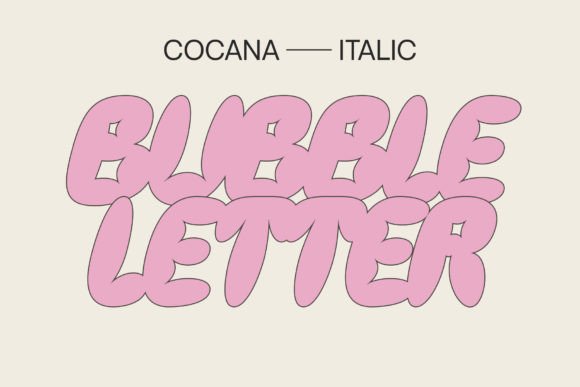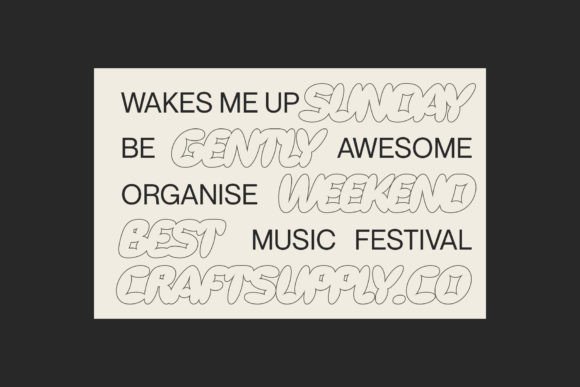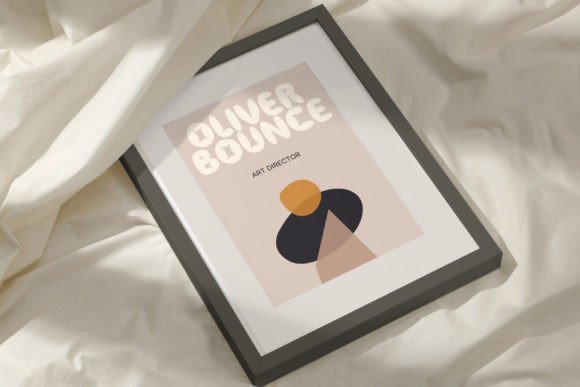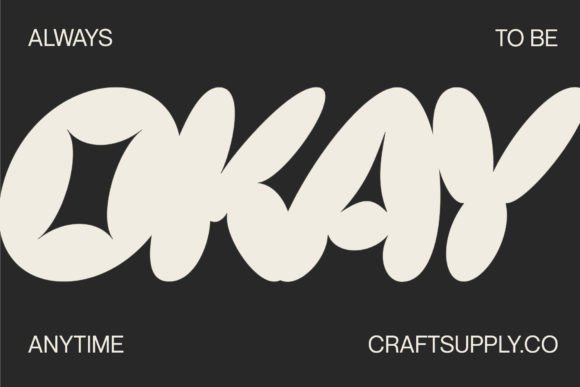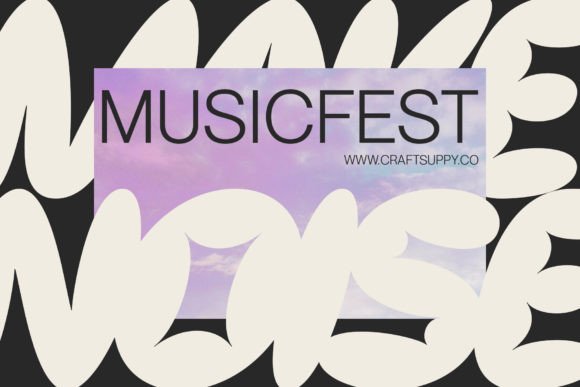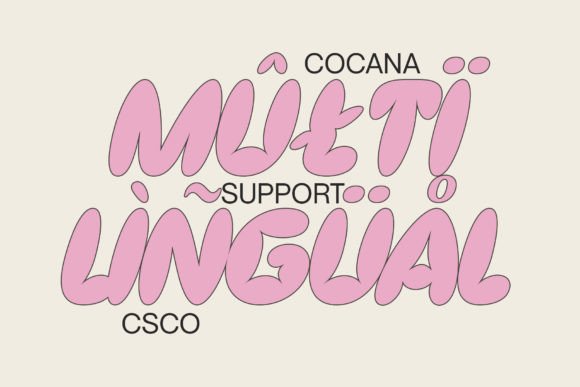
Cocana Font: The Playful and Bubbly Typeface for Joyful Designs
In the world of typography, fonts play a crucial role in conveying the tone and personality of a design. If you’re looking for a typeface that embodies fun, whimsy, and a carefree spirit, look no further than Cocana Font. Also known as Cocana – The Bubble Font, this playful and bubbly typeface is perfect for designers and crafters who want to add a touch of joy and youthful energy to their projects.
The Characteristics of Cocana Font
Cocana Font is characterized by its rounded and bulbous letterforms, which give it a unique and charming appearance. The font’s playful and cheerful vibe makes it an excellent choice for projects that aim to convey a sense of happiness and positivity. Whether you’re working on invitations, posters, or any creative endeavor, Cocana adds a touch of playfulness and charm that is sure to capture the attention of your audience.
Perfect for Playful and Creative Projects
Cocana Font is perfect for designers and crafters who work on playful and creative projects. Its fun and whimsical nature makes it an excellent choice for:
- Invitations: Birthdays, baby showers, and other celebrations call for a font that exudes joy and happiness. Cocana Font is the perfect choice for creating invitations that set the tone for a fun and festive event.
- Posters: Whether you’re creating a poster for a concert, festival, or sale, Cocana Font is sure to grab the attention of your audience with its playful and cheerful vibe.
- Social Media Graphics: Add a touch of personality to your social media graphics with Cocana Font. Its fun and bubbly nature makes it perfect for creating engaging and shareable content.
- Crafting Projects: If you’re a crafter who loves to create handmade cards, scrapbook pages, or other paper crafts, Cocana Font is a great addition to your typography collection.
Why Choose Cocana Font?
So, why choose Cocana Font for your design projects? Here are just a few reasons:
- Unique and Eye-catching: Cocana Font’s rounded and bulbous letterforms make it a unique and eye-catching typeface that is sure to stand out in a crowd.
- Playful and Cheerful: The font’s playful and cheerful vibe makes it perfect for projects that aim to convey a sense of joy and happiness.
- Versatile: Cocana Font is a versatile typeface that can be used for a wide range of projects, from invitations and posters to social media graphics and crafting projects.
- Easy to Read: Despite its playful nature, Cocana Font is easy to read, making it perfect for projects that require a clear and legible typeface.
Tips for Using Cocana Font
Here are a few tips for using Cocana Font in your design projects:
- Pair it with a Simple Background: Cocana Font’s playful and bubbly nature can be overwhelming if paired with a busy background. Pair it with a simple background to make the font stand out.
- Use it for Headings: Cocana Font is perfect for headings and titles. Use it to add a touch of personality to your design.
- Experiment with Colors: Cocana Font looks great in a variety of colors. Experiment with different colors to find the one that works best for your project.
Cocana Font is a playful and bubbly typeface that brings a cheerful and light-hearted vibe to your designs. Its unique and eye-catching letterforms make it perfect for projects that aim to convey a sense of joy and happiness. Whether you’re a designer or crafter, Cocana Font is a great addition to your typography collection. With its versatility, ease of use, and playful nature, Cocana Font is sure to become a favorite in your design toolkit.